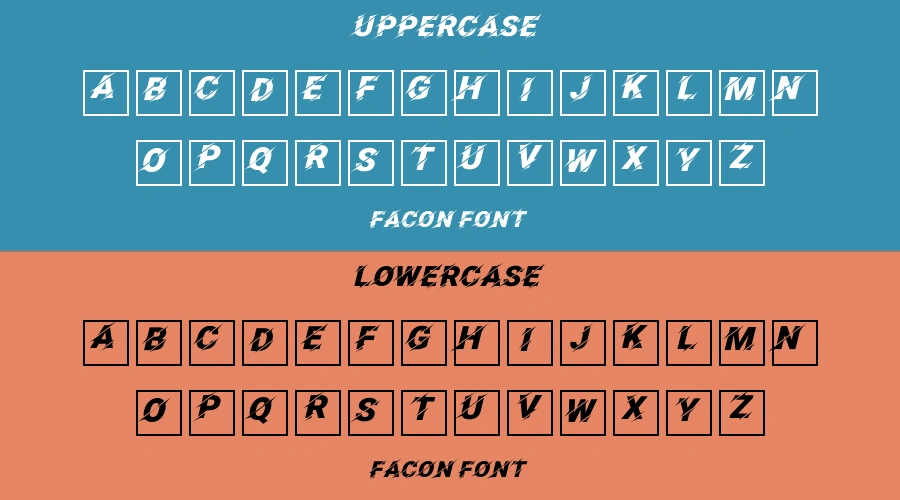
About Facon Font
Designed with precision, Facon Font merges humanist proportions with functionality in every character. This versatility makes it particularly effective for engineering drawings, where originality and visual authority directly impact communication quality. Each letterform demonstrates meticulous craftsmanship.
Technical excellence shines through elements like swash extensions and mid-word alternates, enhancing typographic versatility. In promotional materials settings, Facon Font proves its worth through superior scanning accuracy. The thoughtful execution of proportion and institutional trust ensures professional results.